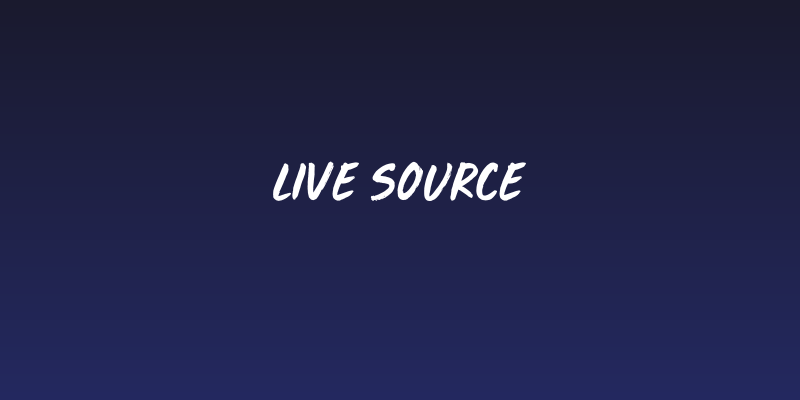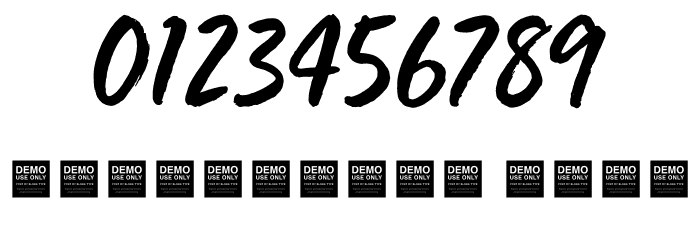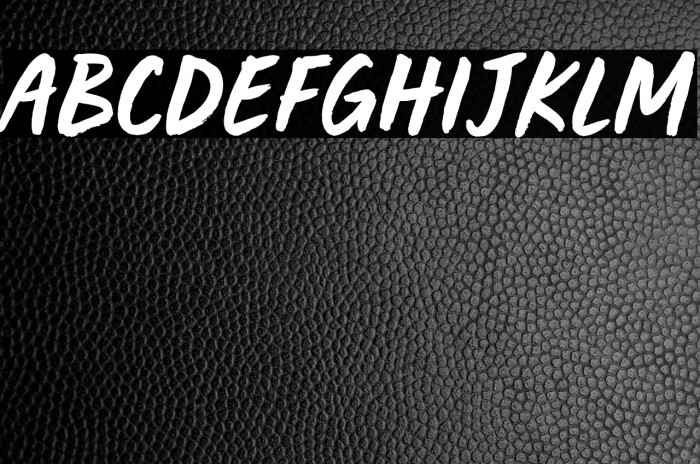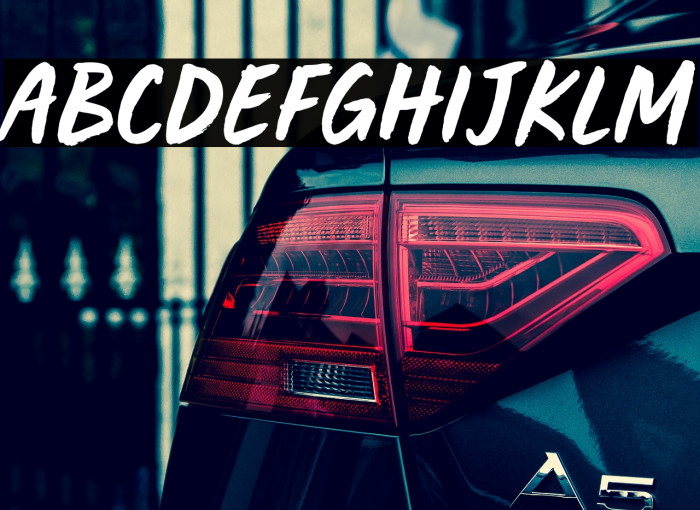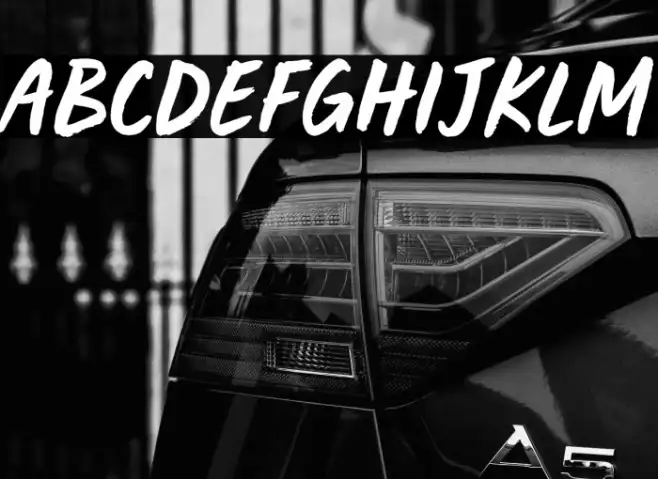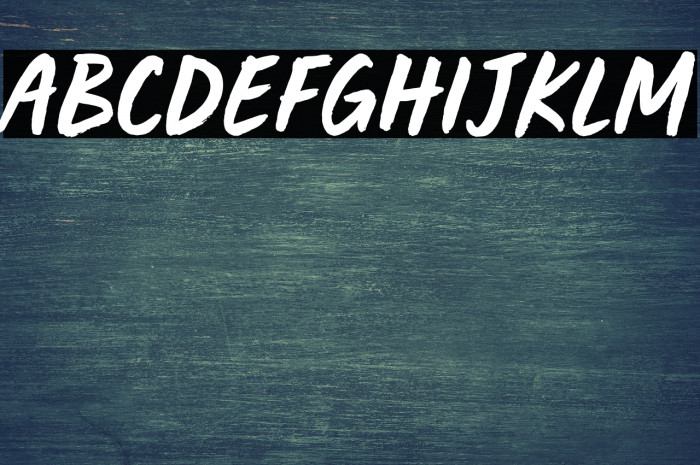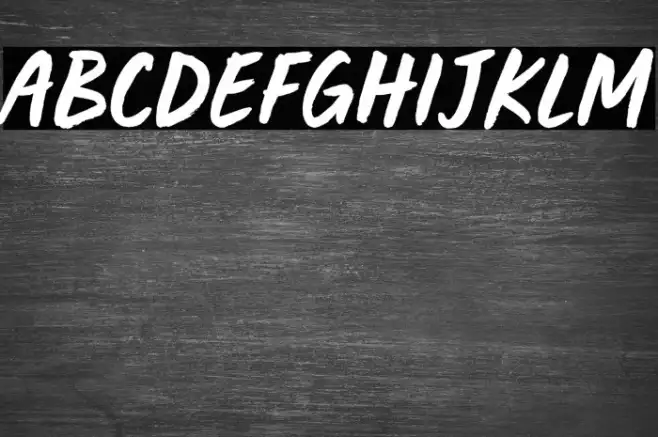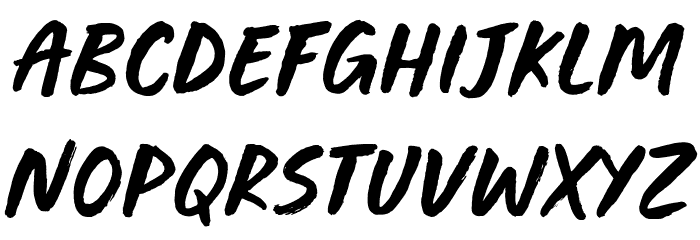
Live Source Font
Live Source Description
This font features a bold, energetic script style that mimics the fluidity and expressiveness of handwritten brush strokes. The characters are slightly slanted, adding a dynamic and lively feel. The strokes are thick and consistent, providing a strong visual impact. The uppercase and lowercase letters maintain a cohesive appearance, with rounded edges and smooth curves that enhance readability. The numbers and special characters follow the same stylistic approach, ensuring uniformity across all glyphs. This font is ideal for projects that require a personal touch or a creative flair.